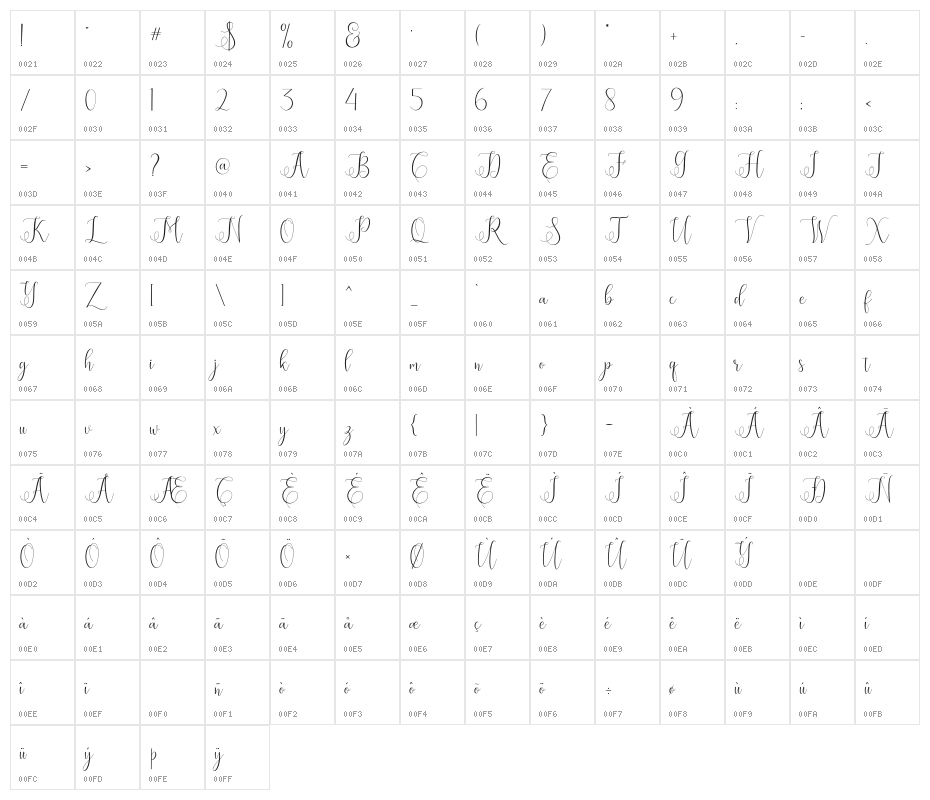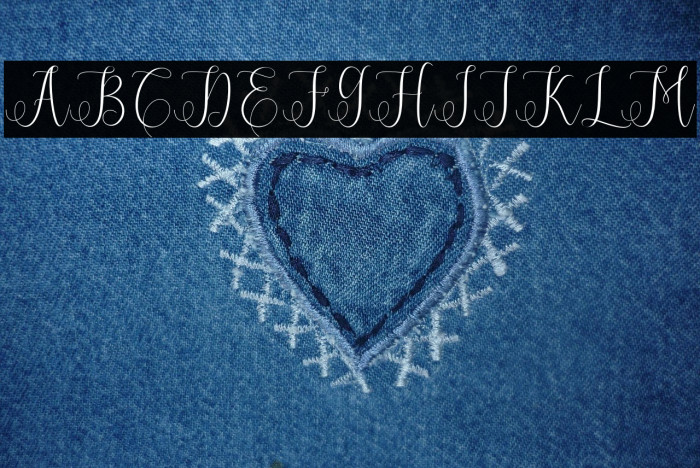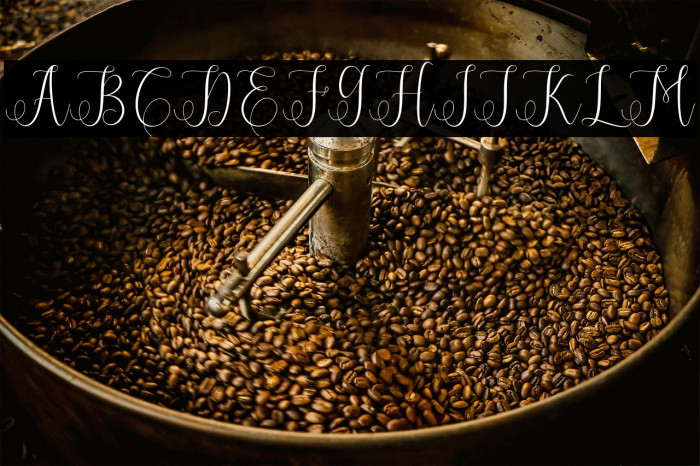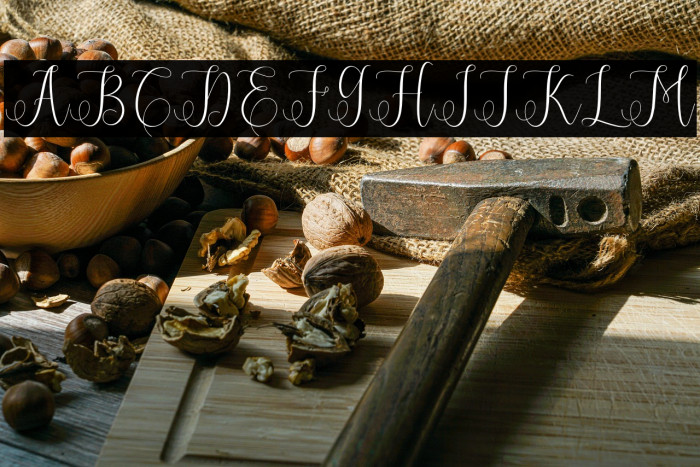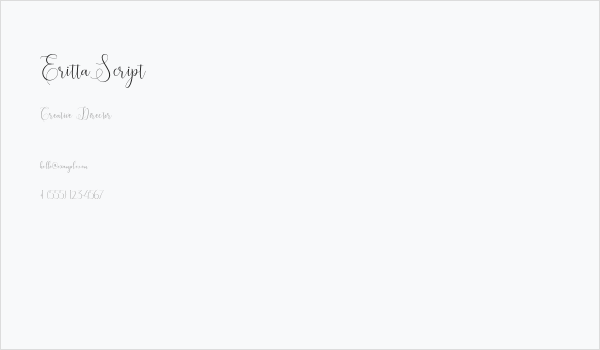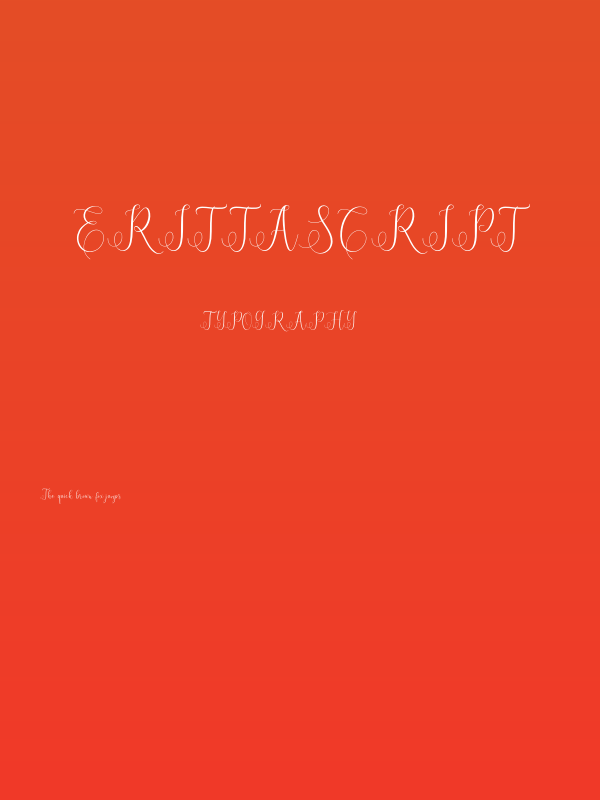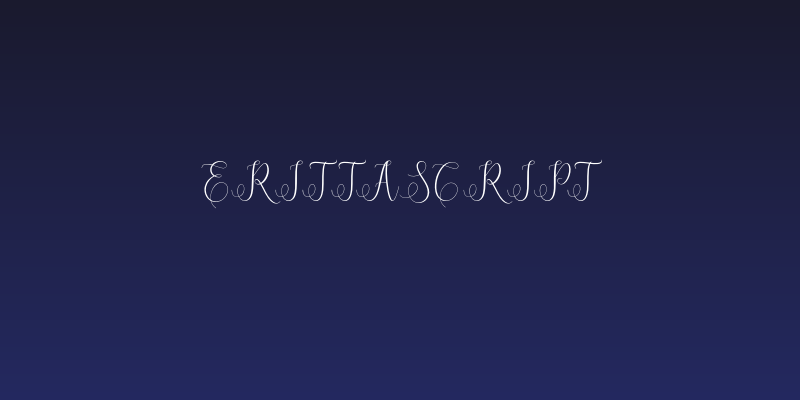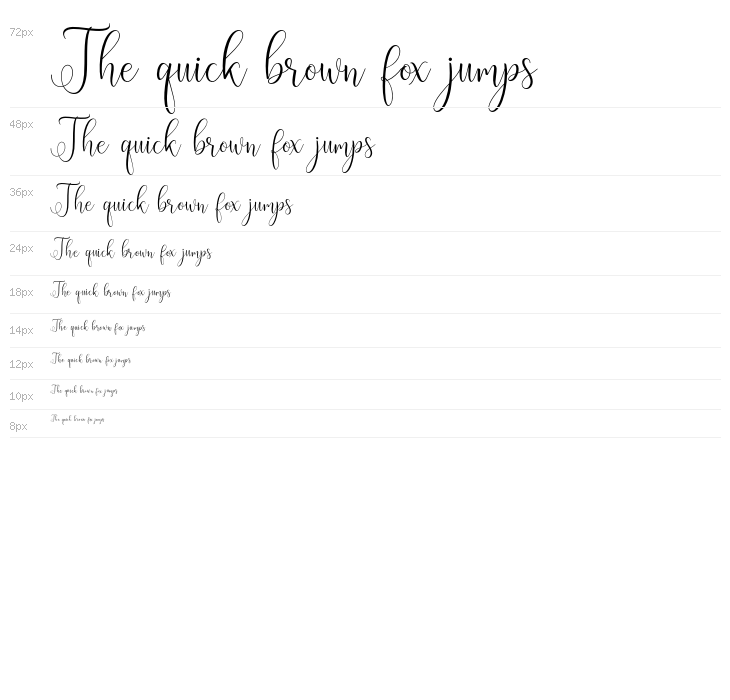
ErittaScript Font
ErittaScript Description
This elegant script font features a flowing, cursive style with delicate swirls and loops that give it a sophisticated and graceful appearance. The uppercase letters are particularly ornate, with intricate flourishes that add a touch of luxury and refinement. The lowercase letters maintain a consistent fluidity, making the font highly legible despite its decorative nature. The numerals and special characters are designed to match the overall aesthetic, ensuring a cohesive look across all text elements. This font is perfect for creating a sense of elegance and class in any design project.
| Overall Style | Elegant, Decorative |
| Use Case | Logos, Invitations, Branding |
| Proposed Projects | Ideal for wedding invitations, luxury branding, elegant packaging, and high-end stationery. |